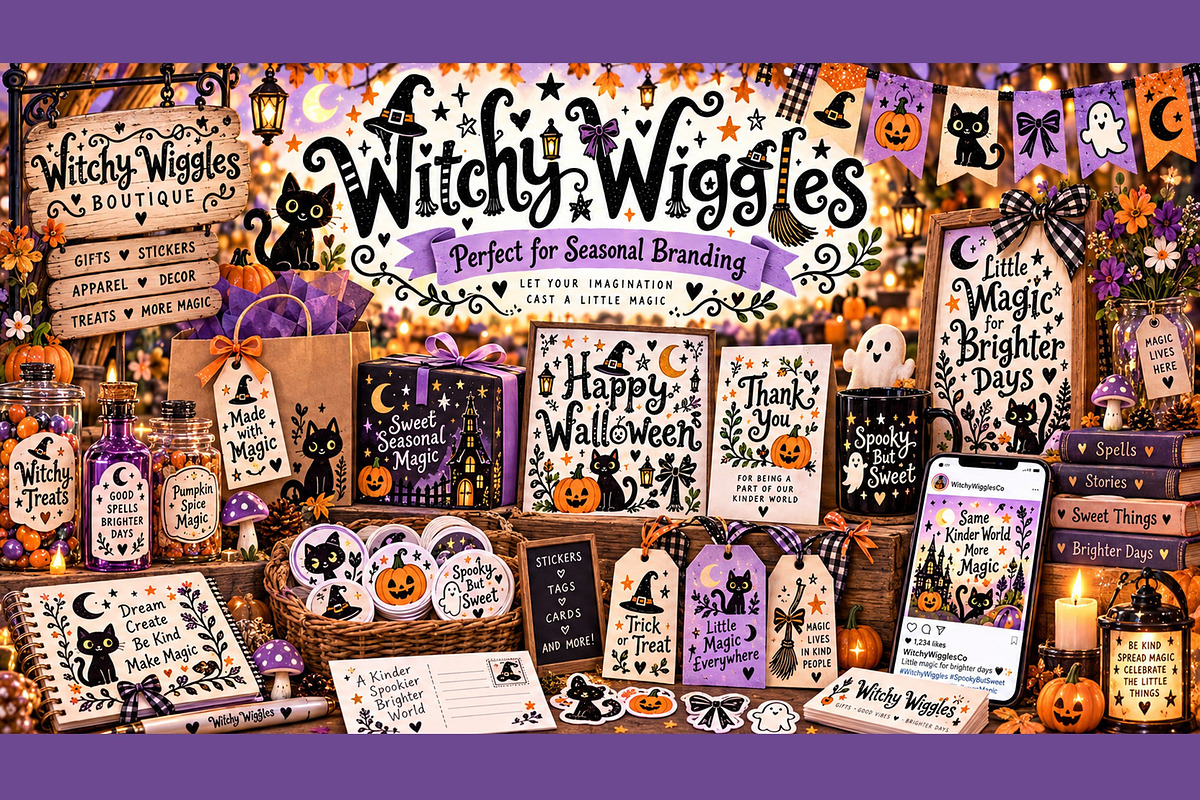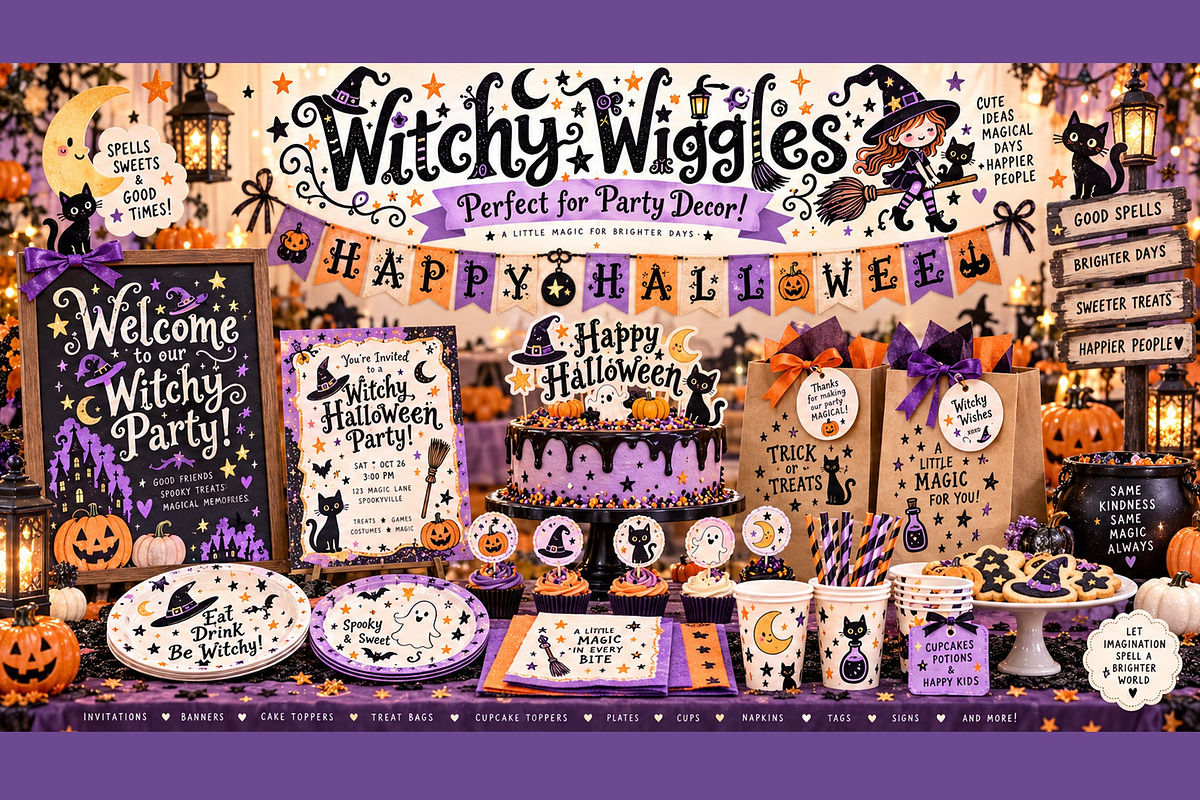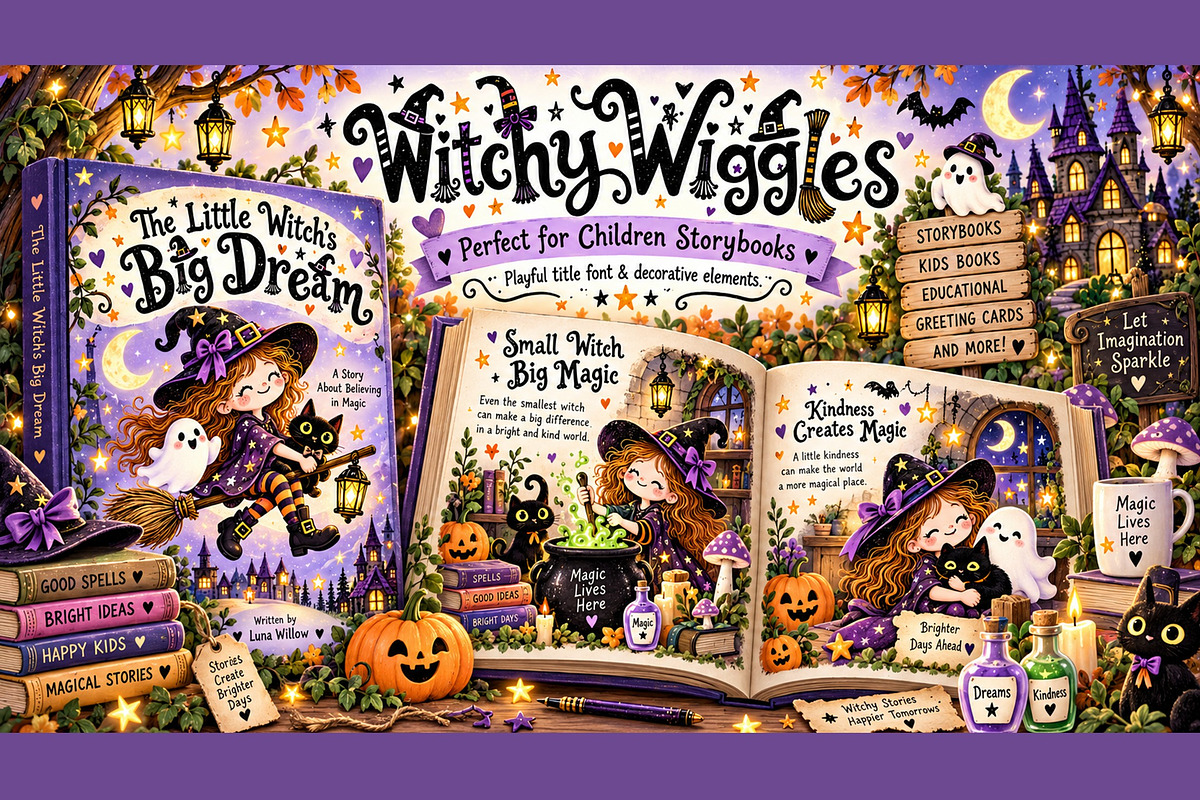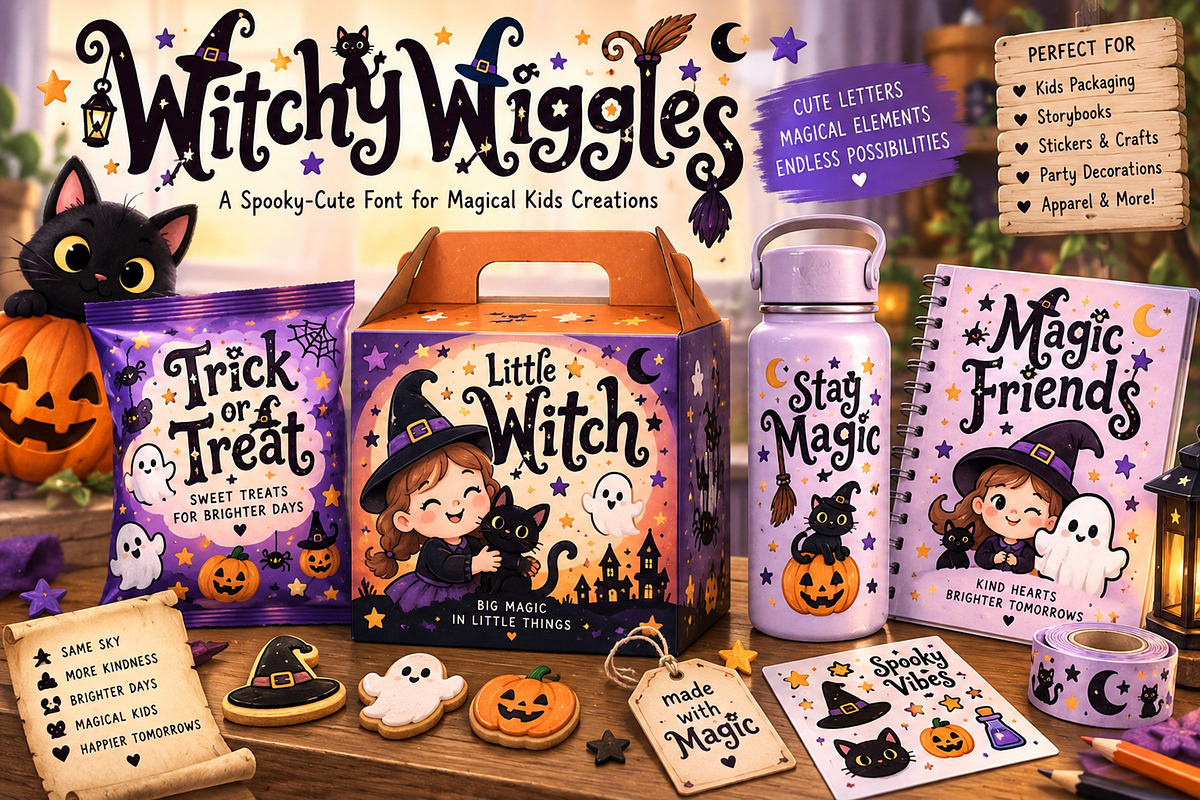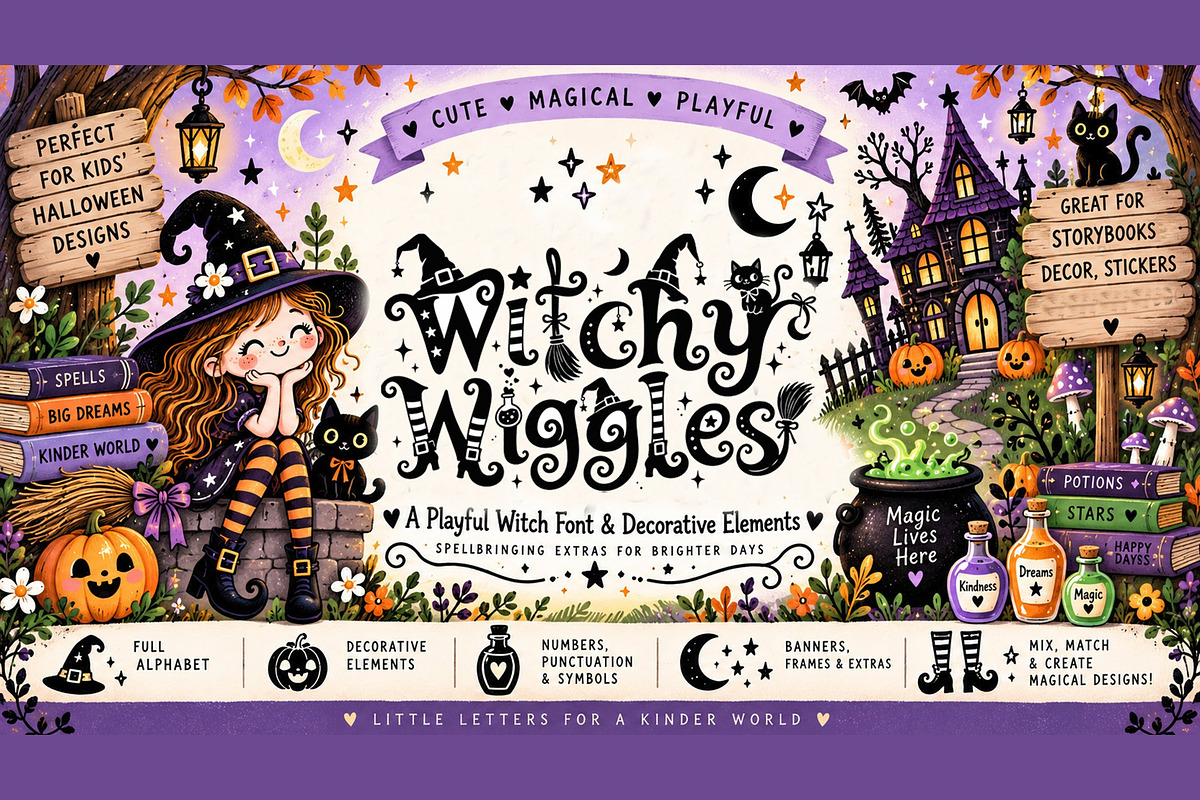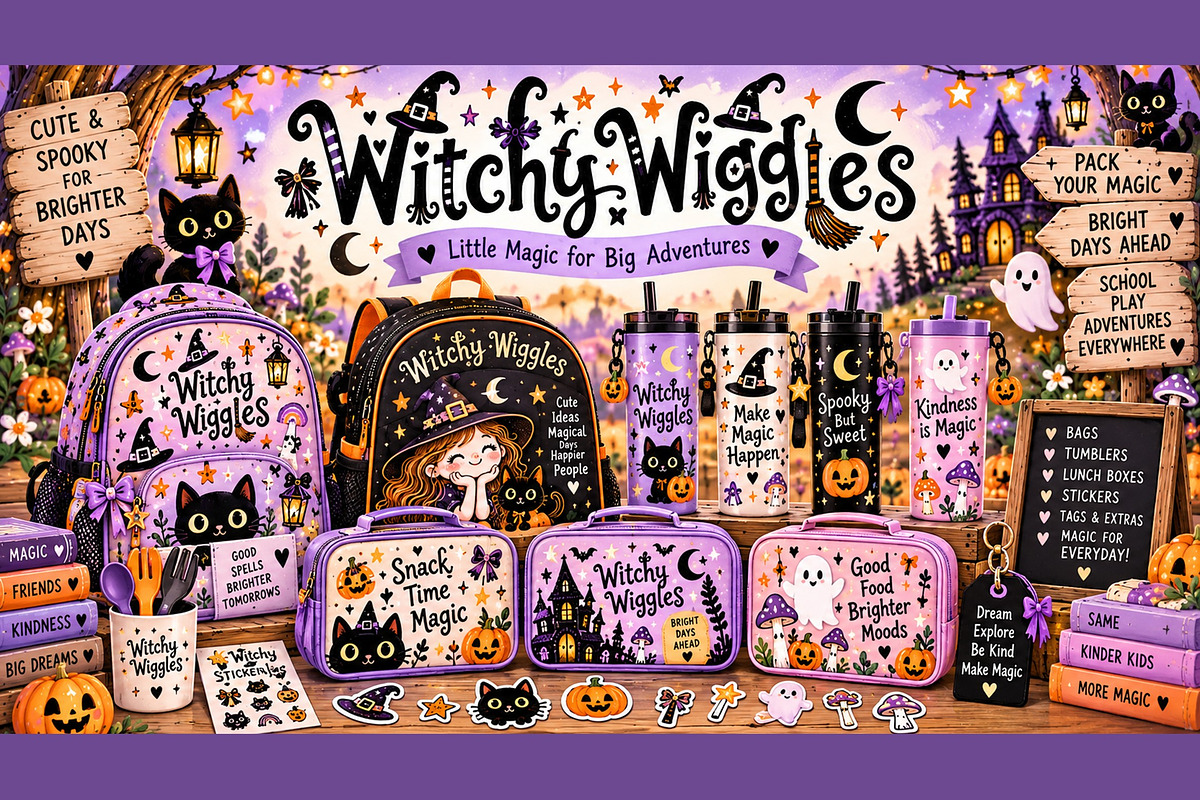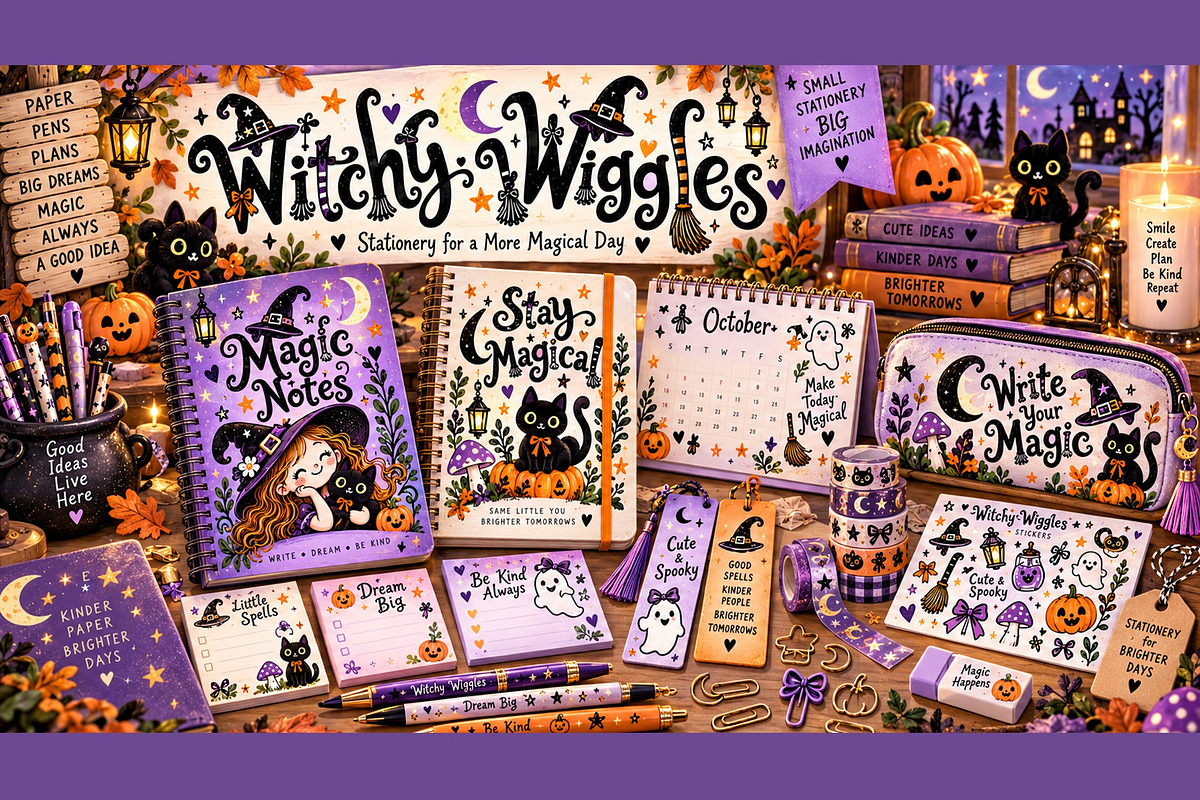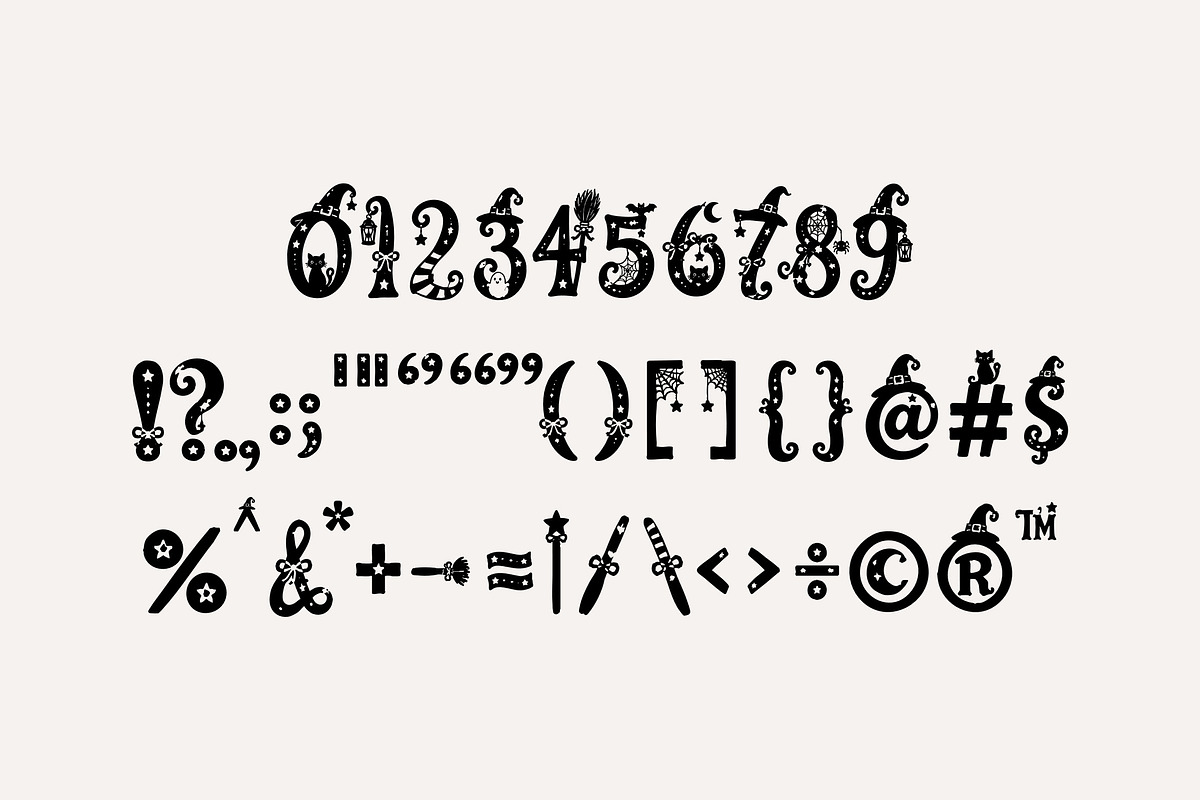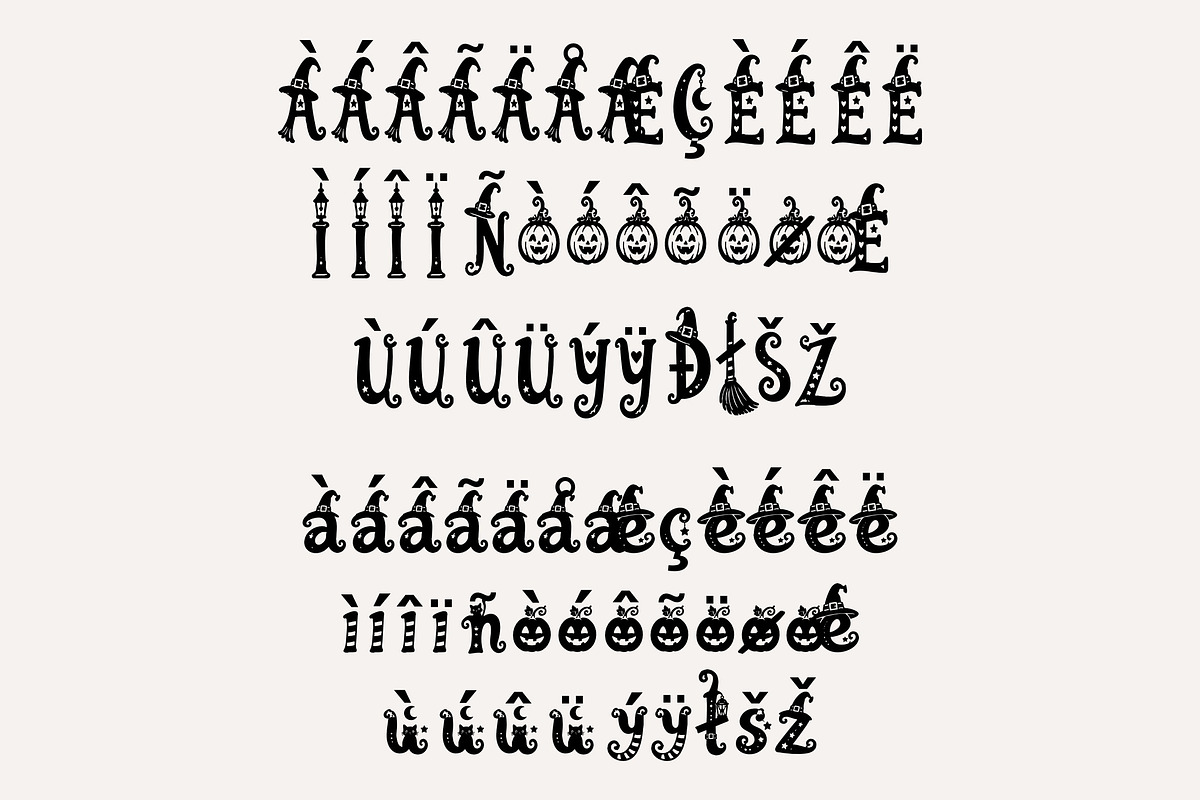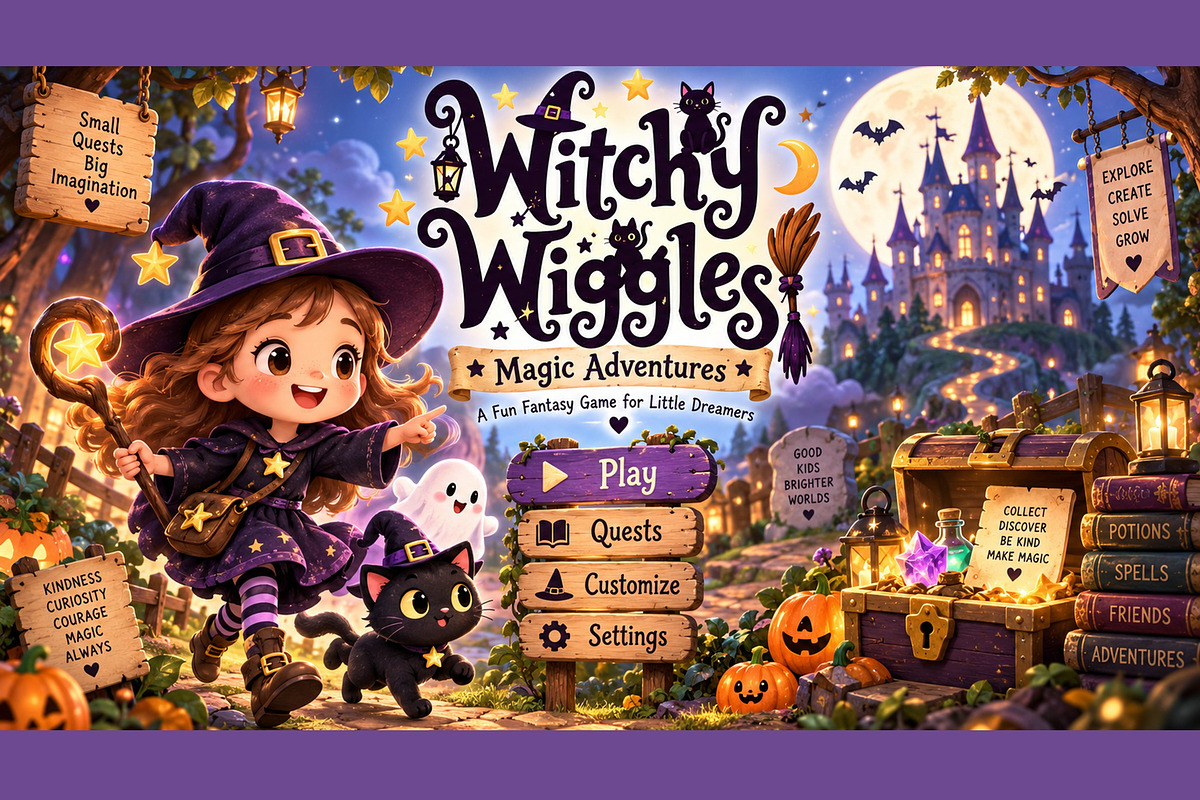
Witchy Wiggles
Witchy Wiggles is a whimsical Halloween display font filled with playful witch-inspired details. Its crooked, wiggly letterforms feature magical touches like witch hats, broomsticks, striped stockings, stars, moons, bows, lanterns, cats, and potion-inspired accents. Cute rather than creepy, it’s perfect for kids’ Halloween, party decorations, stickers, storybooks, invitations, packaging, crafts, and seasonal branding.